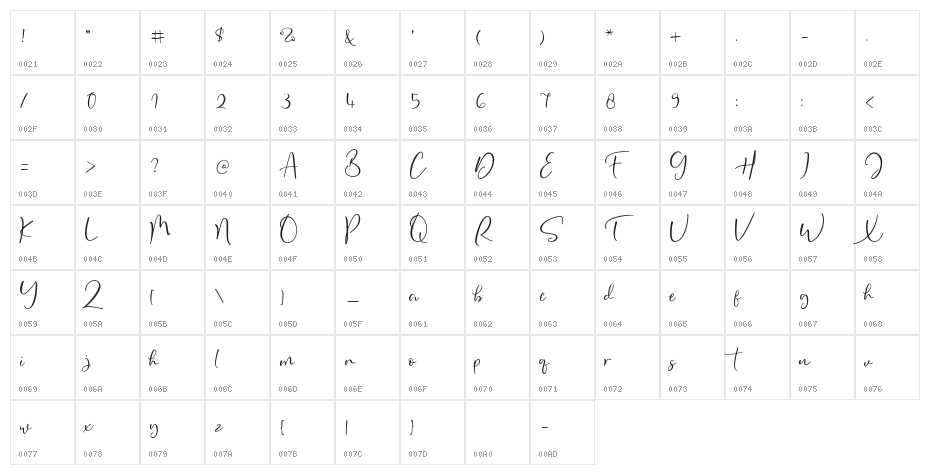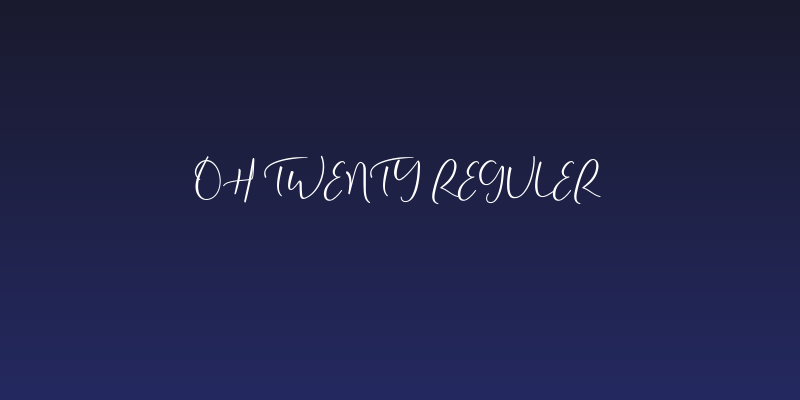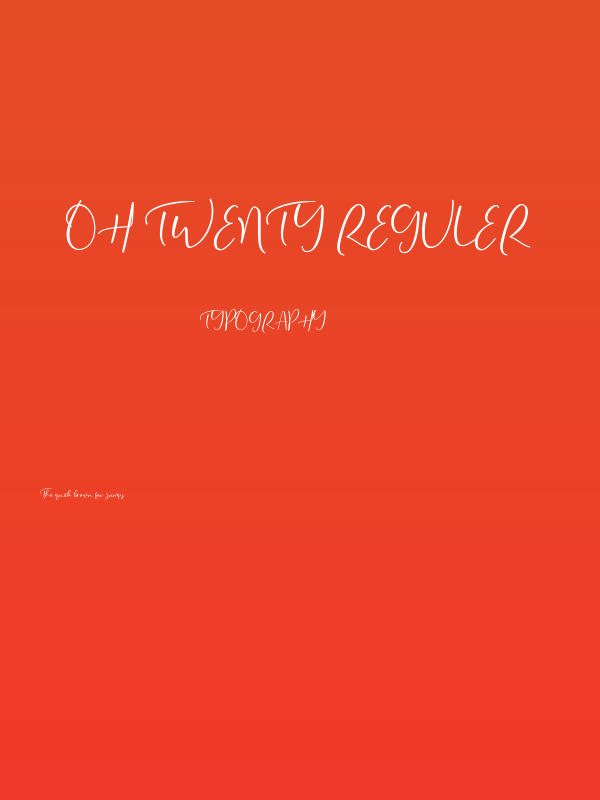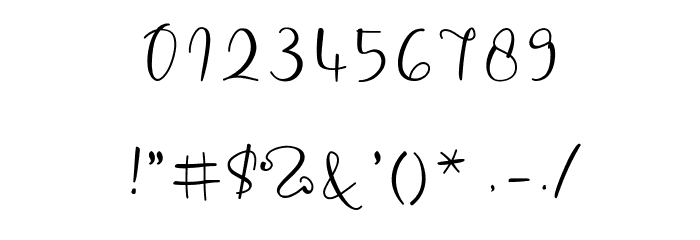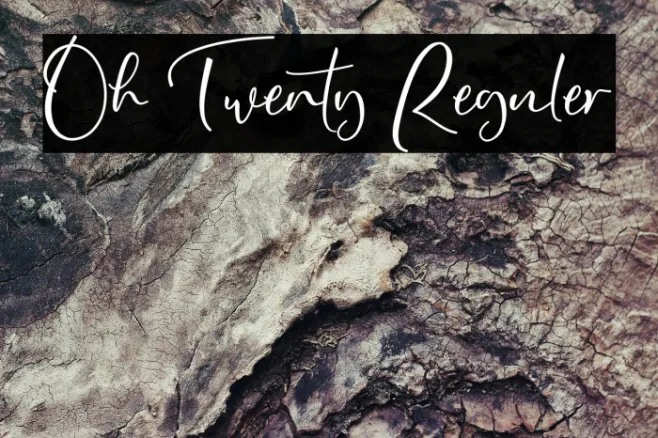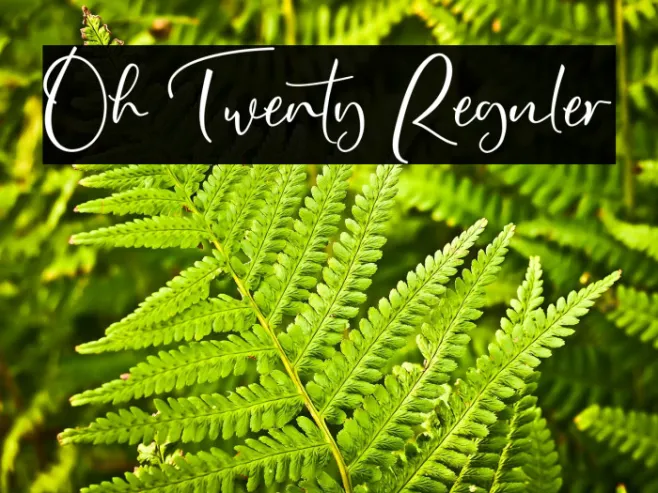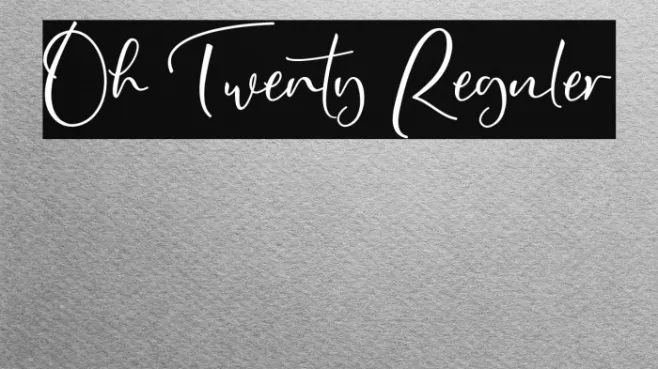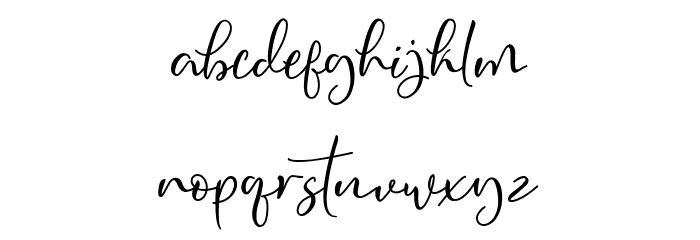
Oh Twenty Reguler Font
Oh Twenty Reguler Description
This font features a playful and elegant handwritten style, characterized by its fluid and cursive letterforms. The uppercase letters exhibit a graceful flow with varying stroke widths, while the lowercase letters maintain a consistent, smooth appearance. The numerals are distinct and easy to read, complementing the overall aesthetic. Special characters are creatively integrated, enhancing the font's versatility. Its organic and lively nature makes it suitable for projects that require a personal touch or a sense of creativity.
| Proposed Projects | Ideal for wedding invitations, greeting cards, personal branding, and creative projects. |